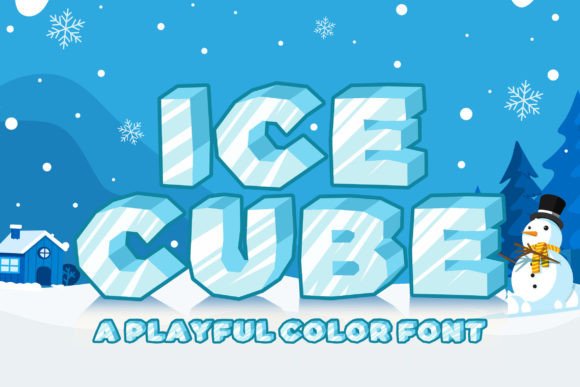
Introducing Ice Cube Font, the ultimate choice for anyone in search of a standout font that exudes creativity, imagination, and endless fun. Created by the talented team at Blankids Studio, this SVG Color Font is here to revolutionize your designs and take them to new heights.
Are you tired of using the same old fonts that fail to make an impact? With Ice Cube Font, your designs will never go unnoticed. This font is designed to add a playful and attractive touch to any project, making it perfect for book covers, posters, packaging, merchandise, logotypes, and so much more.
What sets Ice Cube Font apart from the rest is its impeccable aesthetics. Each character has been meticulously crafted to ensure a high level of visual appeal. The result? A font that not only captures attention but also evokes a sense of wonder and excitement.
But that's not all - Ice Cube Font is an SVG font, which means it offers endless possibilities for customization. With its vibrant colors and unique texture, this font will bring your designs to life like never before. Whether you're designing a trifold poster or creating a captivating logo, Ice Cube Font will make your work truly stand out from the crowd.
Imagine the impact of using a font that effortlessly communicates your brand's personality and style. Ice Cube Font gives you the power to do just that. Its versatility allows you to adapt it to any project, ensuring that your message is delivered with maximum impact.
But what truly sets Ice Cube Font apart is the emotion it evokes. This font has a way of capturing the imagination and sparking creativity in ways that other fonts simply cannot. It's the font that inspires you to think outside the box and push the boundaries of design.